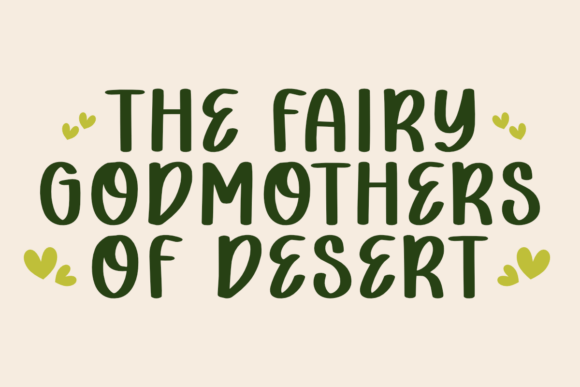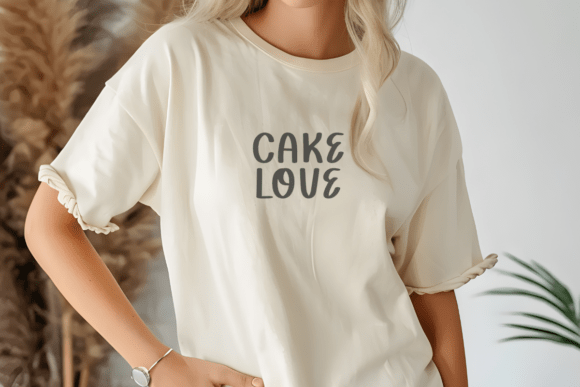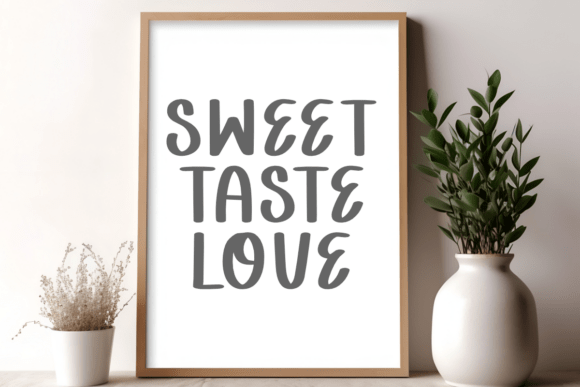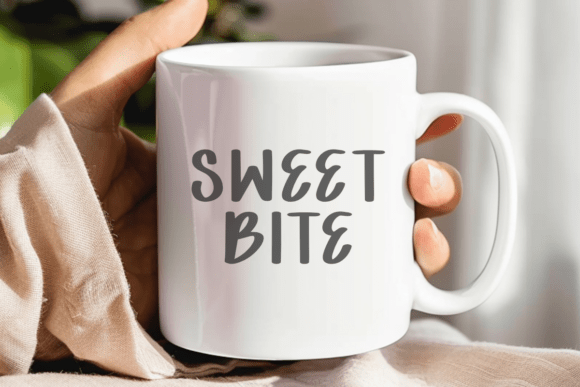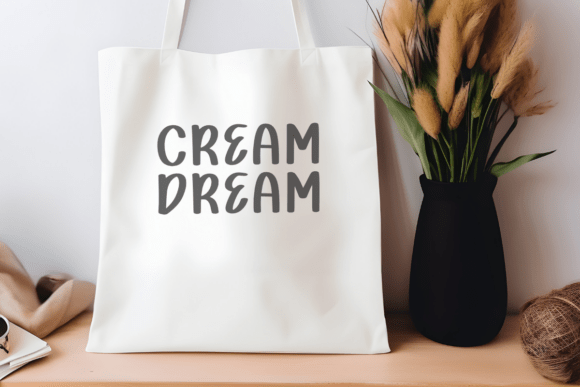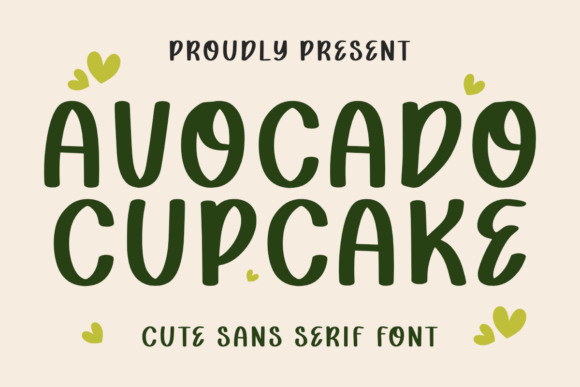
Introducing Avocado Cupcake Font: The Perfect Handwriting Font for Creative Moms
Are you a creative mom who loves DIY projects, journaling, and crafting with Cricut? Look no further! We’re excited to introduce Avocado Cupcake Font, a cute and playful handwriting font that’s perfect for planners, stickers, cards, quotes, and craft projects. In this article, we’ll dive into the features and benefits of Avocado Cupcake Font and explore how it can elevate your creative projects.
What is Avocado Cupcake Font?
Avocado Cupcake Font is a unique and charming handwriting font that’s designed to add a touch of personality to your creative projects. With its playful and whimsical feel, this font is ideal for crafty moms who want to add a personal touch to their planners, stickers, cards, and quotes. Whether you’re creating a DIY journal, a custom sticker, or a handmade card, Avocado Cupcake Font is the perfect choice.
Key Features of Avocado Cupcake Font
- Cute and Playful Design: Avocado Cupcake Font features a cute and playful design that’s perfect for creative projects. The font’s unique and whimsical feel will add a touch of personality to your planners, stickers, cards, and quotes.
- Handwriting Style: Avocado Cupcake Font is a handwriting font that’s designed to mimic the look and feel of handwritten text. This makes it perfect for adding a personal touch to your creative projects.
- Versatile: Avocado Cupcake Font is a versatile font that can be used for a variety of creative projects, including planners, stickers, cards, quotes, and craft projects.
- Perfect for DIY Projects: Avocado Cupcake Font is ideal for DIY projects, including journaling, Cricut crafts, and handmade cards.
Benefits of Using Avocado Cupcake Font
So, why should you use Avocado Cupcake Font for your creative projects? Here are just a few benefits:
- Adds a Personal Touch: Avocado Cupcake Font adds a personal touch to your creative projects, making them stand out from the crowd.
- Easy to Read: The font is easy to read, making it perfect for planners, stickers, cards, and quotes.
- Versatile: Avocado Cupcake Font can be used for a variety of creative projects, making it a great addition to your font collection.
- Inspires Creativity: The playful and whimsical design of Avocado Cupcake Font is sure to inspire creativity and bring a smile to your face.
Avocado Cupcake Font is a cute and playful handwriting font that’s perfect for creative moms who love DIY projects, journaling, and crafting with Cricut. With its unique and whimsical design, this font is ideal for adding a personal touch to your planners, stickers, cards, quotes, and craft projects. Whether you’re a seasoned crafter or just starting out, Avocado Cupcake Font is a great addition to your font collection. So why wait? Download Avocado Cupcake Font today and start creating!